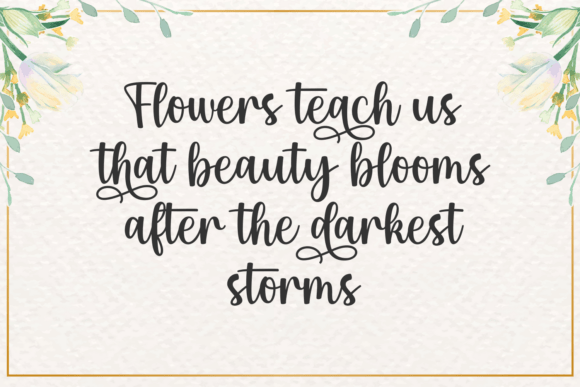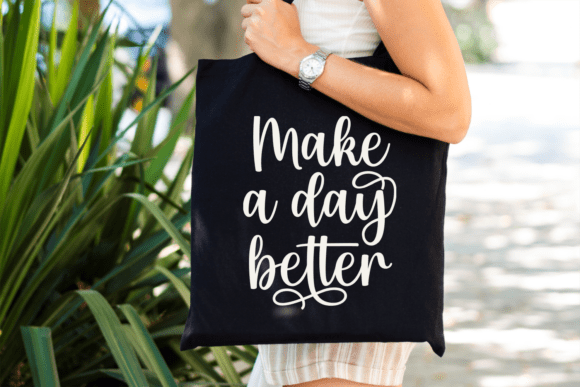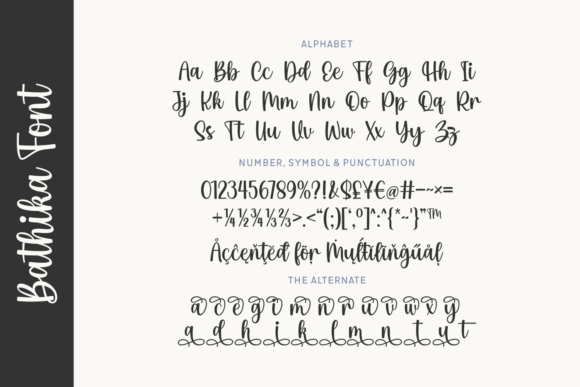
Bathika Font: Elevate Your Design with Elegance and Whimsy
In the world of typography, fonts play a crucial role in conveying the tone and personality of a design. For those seeking a modern script font that exudes elegance and whimsy, Bathika is an exceptional choice. This beautiful font is designed to make a visual impact while maintaining high readability, making it perfect for a variety of creative projects.
The Essence of Bathika
Bathika is a modern script font that beautifully marries elegance and whimsy through its stylish swashes and fluid strokes. The font’s design is centered around creating a sense of sophistication and charm, making it ideal for projects that require a touch of luxury and romance. Whether you’re working on invitations, floral branding, wedding stationery, product packaging, or romantic quotes, Bathika is the perfect choice.
Unique Features of Bathika
The heart of Bathika lies in its unique swash characters, which add a flourish of sophistication without overpowering the design. These swashes are carefully crafted to enhance the overall aesthetic of the font, making it perfect for projects that call for both charm and clarity. The font’s fluid strokes and elegant letterforms ensure that it remains highly readable, even in smaller sizes.
Bathika is a versatile font that can be used in a variety of creative projects, including:
- Invitations: Create stunning invitations for weddings, parties, and other special events with Bathika’s elegant and whimsical design.
- Floral Branding: Add a touch of sophistication to your floral branding with Bathika’s beautiful swashes and fluid strokes.
- Wedding Stationery: Make your wedding stationery truly special with Bathika’s romantic and elegant design.
- Product Packaging: Elevate your product packaging with Bathika’s luxurious and charming design.
- Romantic Quotes: Add a touch of whimsy and romance to your quotes and social media posts with Bathika’s beautiful font.
Why Choose Bathika?
There are many reasons why Bathika stands out as a modern script font. Here are a few:
- Elegance and Whimsy: Bathika beautifully balances elegance and whimsy, making it perfect for projects that require a touch of sophistication and charm.
- High Readability: The font’s fluid strokes and elegant letterforms ensure that it remains highly readable, even in smaller sizes.
- Unique Swashes: Bathika’s unique swash characters add a flourish of sophistication without overpowering the design.
- Versatility: Bathika can be used in a variety of creative projects, from invitations and floral branding to wedding stationery and product packaging.
Tips for Using Bathika
To get the most out of Bathika, here are a few tips:
- Experiment with Swashes: Bathika’s unique swash characters are a key feature of the font. Experiment with different swashes to find the perfect combination for your design.
- Play with Sizes: Bathika is highly readable, even in smaller sizes. Experiment with different sizes to find the perfect fit for your project.
- Pair with Other Fonts: Bathika pairs well with a variety of other fonts. Experiment with different pairings to find the perfect combination for your design.
In conclusion, Bathika is a modern script font that beautifully marries elegance and whimsy. With its stylish swashes and fluid strokes, it’s perfect for a variety of creative projects, from invitations and floral branding to wedding stationery and product packaging. Whether you’re a designer or crafter, Bathika is an exceptional choice for anyone seeking to elevate their design with sophistication and charm.